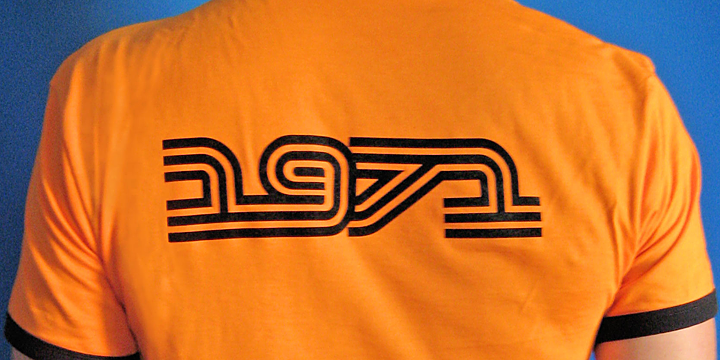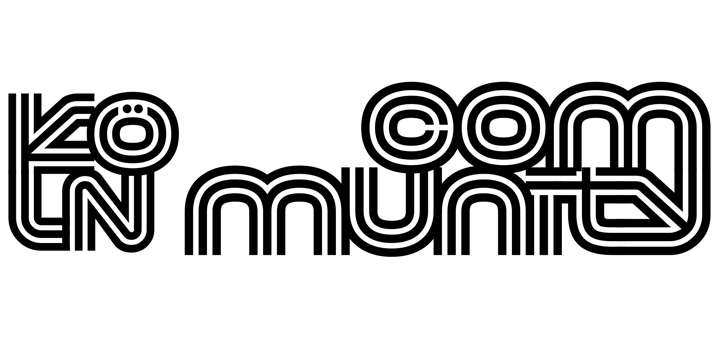
Virna
Virna is a display font family published by FSD.
In September, 2003 I’ve been contacted by MTV for the restyling of mtv.it
I started from the beginning to work on a radical simplification of its visual elements, to achieve a better usability. It didn’t take much to realize the basic design I attempted would have called for a notable reduction of the rich imagery distinguishing MTV’s visual identity.
As a visual aid to help me in this process I designed Virna, a headline “op-art” inspired face with the ability to create both vertical and horizontal ligatures between single words among two text lines, with the same ease of linking letters in handwriting or a linked script typeface.